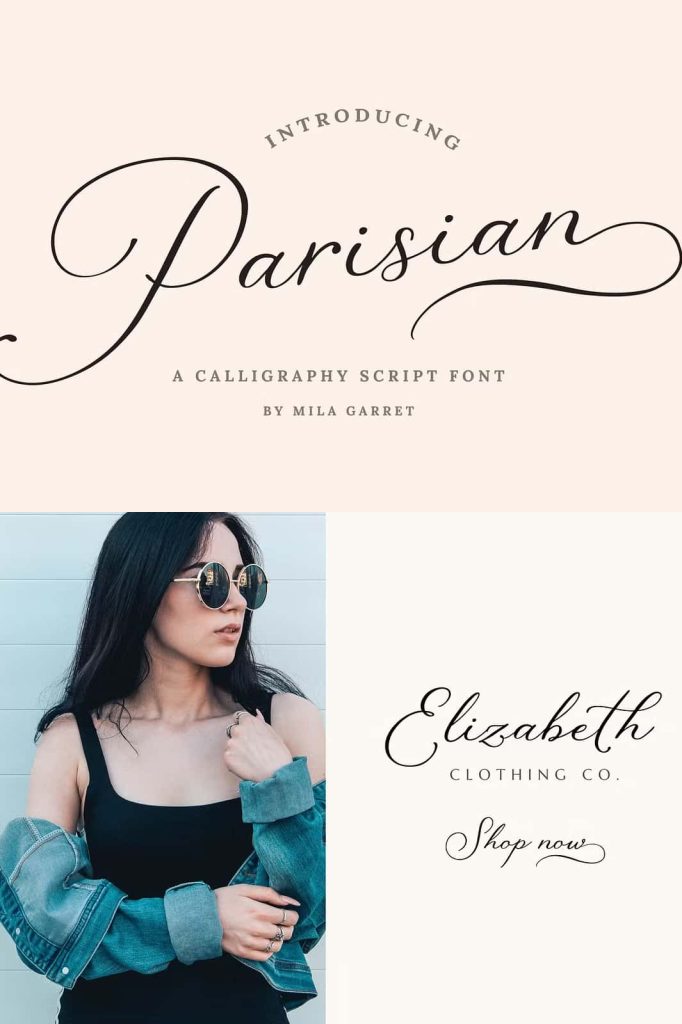
Parisian Script Font – Elegant Vintage Calligraphy for Refined Design
Parisian Script Font is a beautifully crafted, vintage-inspired calligraphy typeface designed to bring an air of elegance and sophistication to every project. With its smooth curves, graceful swashes, and refined details, this font embodies the charm and artistry of classic hand-lettering. Whether you are designing a wedding invitation, logo, website, or greeting card, Parisian Script adds a luxurious touch that captures attention and communicates timeless beauty.
Inspired by the Romance of Vintage Calligraphy
Parisian Script draws inspiration from traditional French calligraphy and vintage penmanship styles. Each letter is carefully designed to balance fluid movement with structured elegance, giving your text a handcrafted yet professional appearance. The result is a typeface that feels both nostalgic and contemporary—perfect for modern brands that appreciate timeless design aesthetics.
The gentle curves and sweeping strokes of Parisian Script evoke the artistry of old-world craftsmanship. This makes it ideal for projects that require sophistication and personality. From branding to stationery, this font creates a sense of refined luxury that resonates across all types of visual media.
Perfect for Logos, Invitations, and Elegant Branding
Parisian Script Font is perfect for designers seeking to create visually stunning and memorable branding. Its elegant flow and delicate structure make it suitable for luxury logos, fashion brands, and high-end packaging. The handcrafted look of the font ensures that every design feels bespoke, adding depth and authenticity to your brand identity.
For wedding invitations and event stationery, Parisian Script captures the romance and elegance of the occasion. Its smooth lines and balanced composition allow you to create personalized designs that look both artistic and professional. Pair it with minimal backgrounds or elegant serif fonts to create contrast and sophistication in your layouts.
Full Set of Swashes and Alternate Characters
To enhance creative flexibility, Parisian Script includes a complete set of uppercase swash letters and lowercase ending swashes. These stylistic alternatives allow you to customize your designs effortlessly, giving them a distinctive, custom-branded look. You can experiment with various combinations to create unique logos, monograms, and signature-style titles that reflect your personal or brand identity.
Each swash and flourish has been designed with precision to complement the flow of the main characters, ensuring smooth transitions and harmonious compositions. This makes Parisian Script a versatile tool for professional designers, artists, and typographers looking for that extra level of refinement in their work.
Versatile and Timeless in Application
Parisian Script adapts beautifully across multiple design applications. Use it for greeting cards, invitations, editorial layouts, business cards, digital graphics, or social media content. Its readability and grace make it an ideal choice for both print and online platforms. Whether you are designing for modern minimalist aesthetics or classic romantic themes, Parisian Script effortlessly enhances your creative vision.
Its balance between legibility and artistic flair ensures that it looks stunning at any size. When used for headlines or short text, it adds a sense of movement and flow, drawing the reader’s eye naturally through the composition. It’s a typeface that combines beauty and functionality in perfect harmony.
Why Designers Love Parisian Script Font
- Vintage-inspired calligraphy design with a modern twist
- Includes uppercase and lowercase swashes for customization
- Perfect for elegant logos, branding, and wedding invitations
- Highly readable and versatile across digital and print formats
- Adds sophistication, romance, and a handcrafted feel to any design
Every detail in Parisian Script is crafted to exude elegance and refinement. It’s the perfect choice for designers who want their work to feel timeless, personal, and polished. Its stylish alternates and beautiful ligatures give your designs a custom-crafted look that’s both memorable and graceful.
Conclusion: Elevate Your Designs with Parisian Script
Parisian Script Font is more than just a typeface—it’s an expression of artistry and elegance. It captures the charm of vintage handwriting while offering the flexibility and refinement modern designers need. Perfect for logos, invitations, websites, and branding materials, it transforms any project into a sophisticated visual experience. With its flowing swashes, delicate details, and versatile applications, Parisian Script brings timeless grace to every word you design. Create your next masterpiece with Parisian Script and let your typography speak with beauty, class, and emotion.